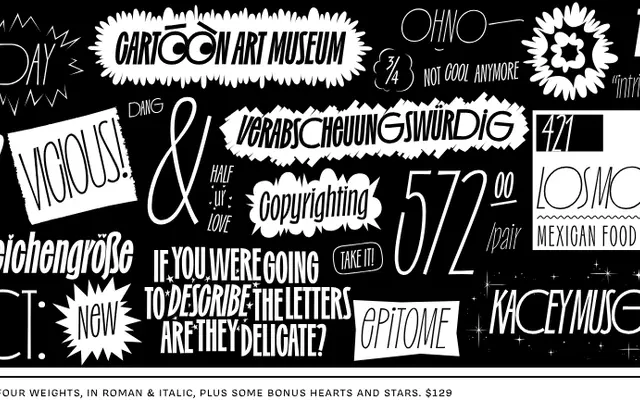
Irregardless
OH no Type · James Edmondson
A deliberately uncomfortable display typeface from OH no Type, built across four weights with italics, an oddball Containers dingbat style, and a variable font thrown in.
Designed as an exercise in resisting instinct and familiar drawing habits, this typeface sits at the weirder end of OH no Type's catalogue. Four weights run from Light to Black with matching italics, and the Containers style provides stackable dingbats and alternative letterforms for typographic embellishment. Stylistic sets offer heart-dotted i's, alternate narrow and wide forms, and non-lining figures, making it well-suited to packaging, beer labels and editorial work where strangeness is an asset.
An experimental display typeface with a deliberately unsettling and unconventional design, sitting outside conventional grotesque or humanist classifications. The Containers style and unusual OpenType features push it firmly into display territory.